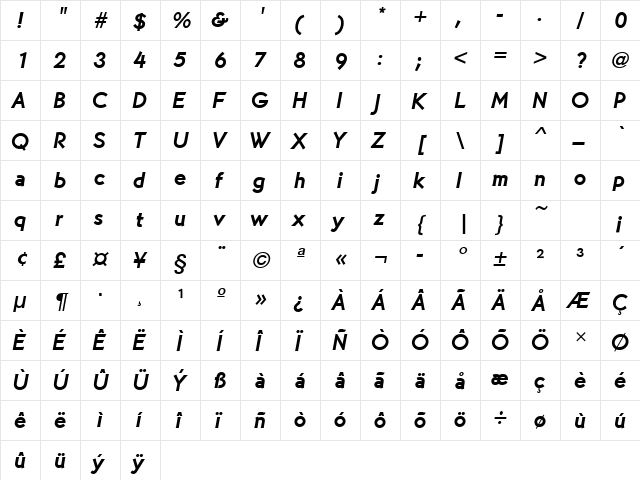
MartinGotURWTBol Italic
Design Context for MartinGotURWTBol Typeface
MartinGotURWTBol is a composed and adaptable typeface that performs quietly and consistently across a wide range of design contexts. The dynamic lean of this cut emphasises speed and emphasis in any layout.
Pro Tip: Use MartinGotURWTBol for emphasis, pull quotes, and subheadings where its slanted energy can add rhythm to the layout.